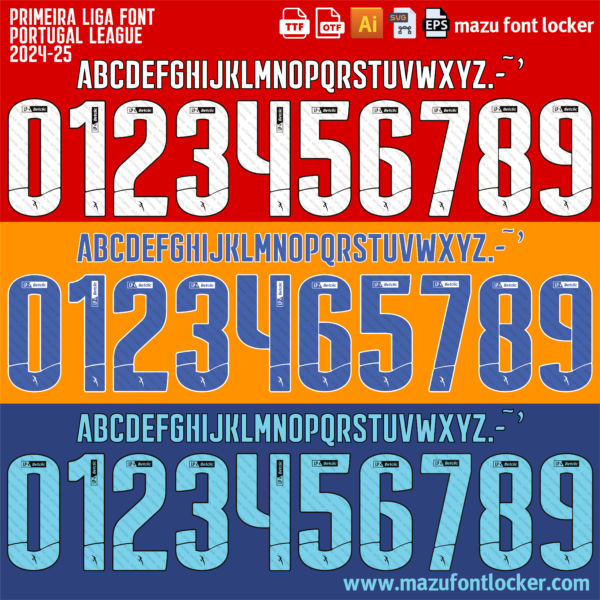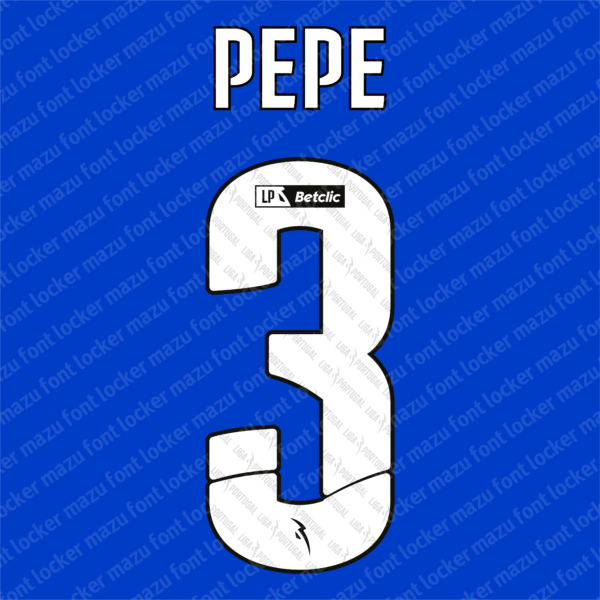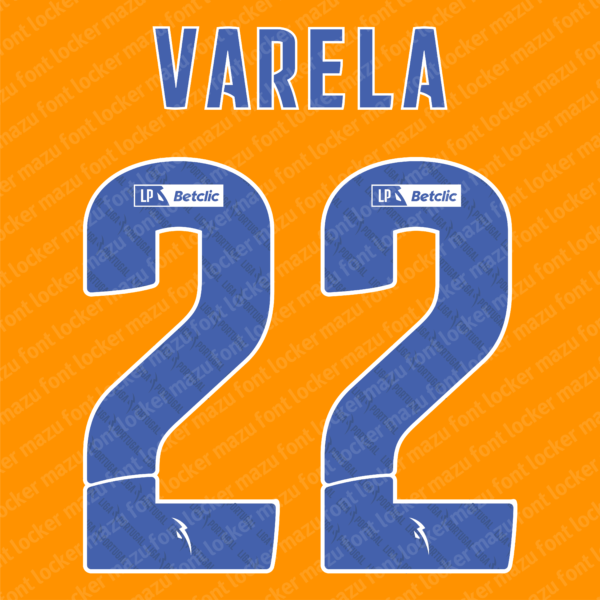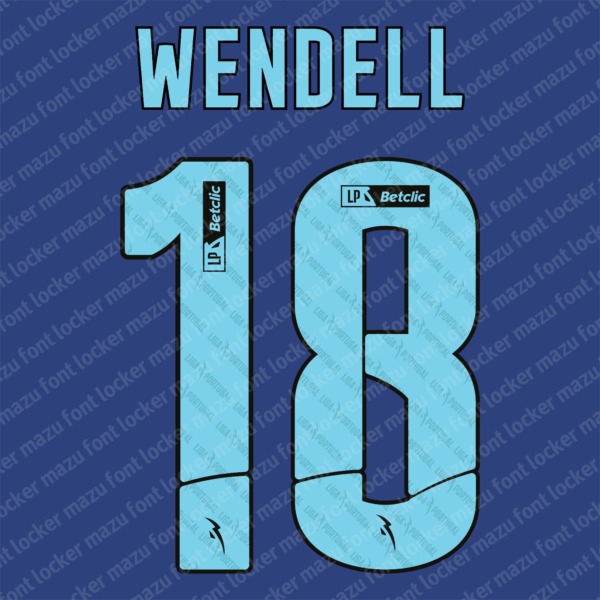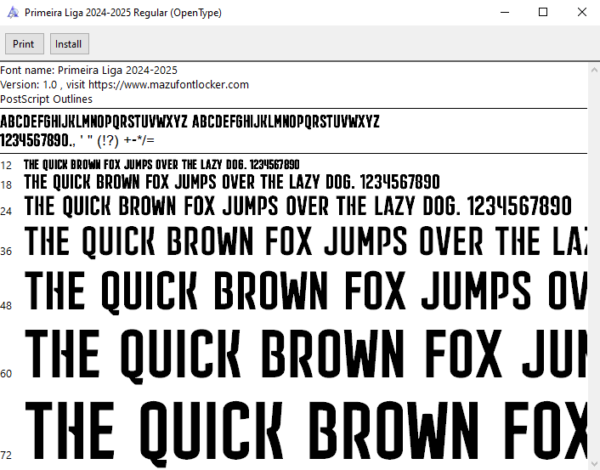
Primeira Liga 2024-2025 Font Vector – Thrilling Portuguese Masterpiece
Download the Primeira Liga 2024-2025 Font Vector and powerfully recreate the bold, explosive, and majestic match-style lettering worn by the top clubs during the electrifying 2024-2025 season. This font captures the fierce and commanding typography that embodies the untamed passion and warrior spirit of Portuguese football, delivering unmatched authenticity, raw intensity, and thunderous power for premium jersey mockups and football designs.
Primeira Liga 2024-2025 Font – Authentic Liga Portugal Typeface
The Primeira Liga 2024-2025 Font is a premium typeface that accurately recreates the official match lettering and branding used throughout the 2024-2025 Primeira Liga season. This high-quality font kit captures the bold, modern, and professional typography that represents the top-flight Portuguese football league.
Designed for professional designers, football content creators, and passionate Primeira Liga fans, the Primeira Liga 2024-2025 Font delivers perfect authenticity for creating realistic team jersey mockups, league table graphics, matchday posters, social media content, and much more. It blends beautifully with the league’s iconic green and white identity.
Why Choose Primeira Liga 2024-2025 Font
This font stands out because of its sharp details and strong connection to the official league visual identity. Every letter and number is crafted to match the exact style used across the 2024-2025 season. Whether you are making realistic club kit templates, league graphics, or nostalgic football content, the Primeira Liga 2024-2025 Font gives your designs that authentic Primeira Liga look.
The letterforms in the Primeira Liga 2024-2025 Font are tall, bold, and highly readable. The strokes have a strong and controlled weight that looks powerful on jerseys and league graphics while maintaining excellent clarity and modern elegance.
The numerals use bold curves and firm edges, giving them a confident and premium appearance. This design ensures great legibility whether used in large print formats, digital mockups, scoreboards, or video content.
- Full uppercase A–Z and numbers 0–9 in authentic Primeira Liga 2024-2025 style
- Special league crest glyph for accurate shirt number and graphic detailing
- Multilingual Latin character support including diacritics
- Create highly realistic Primeira Liga club jersey mockups with accurate lettering
- Design stunning league table graphics, match posters, and season highlights
- Produce professional football content with authentic Primeira Liga aesthetics
- Includes the exact crest glyph placement used in official league branding
Primeira Liga 2024-2025 Season